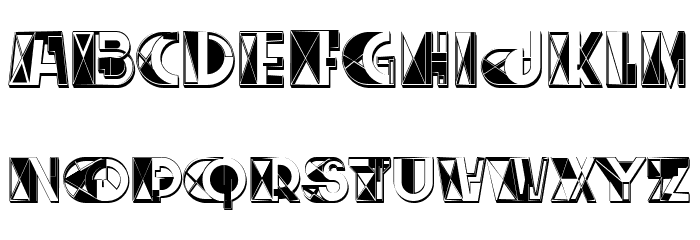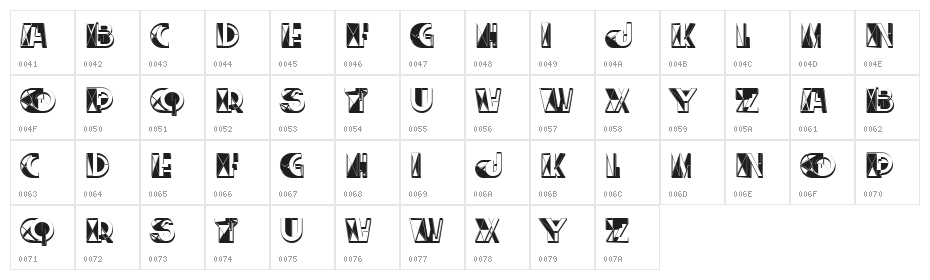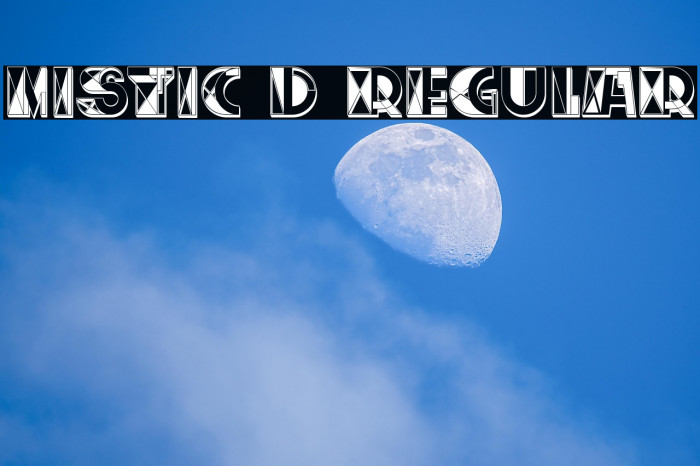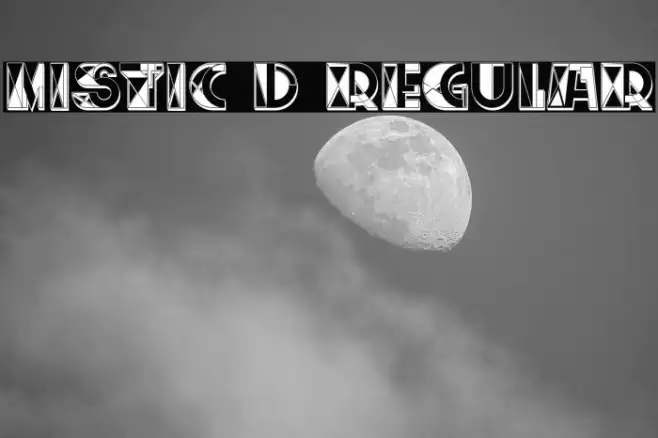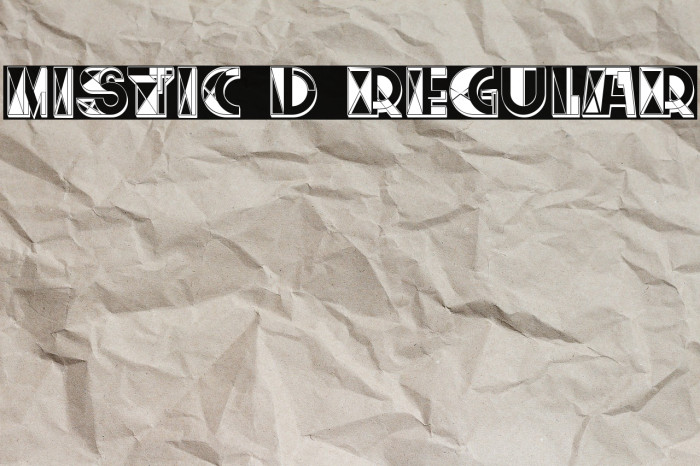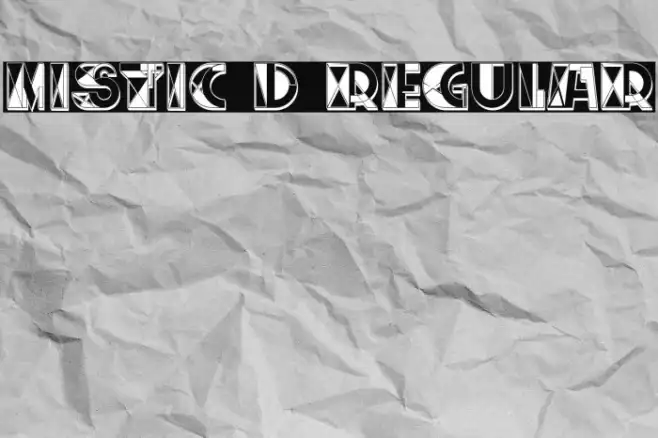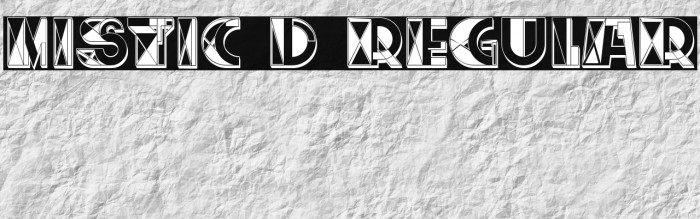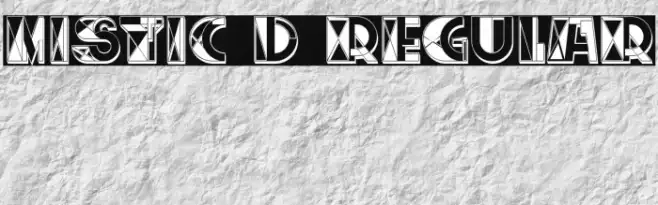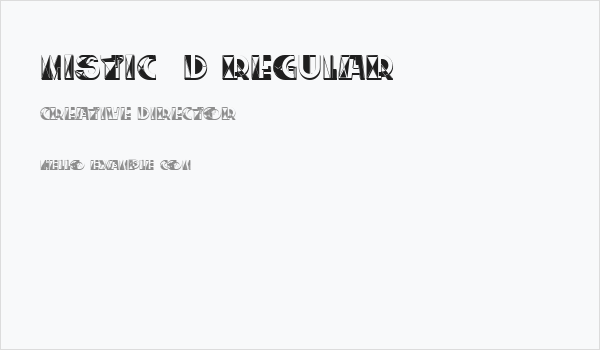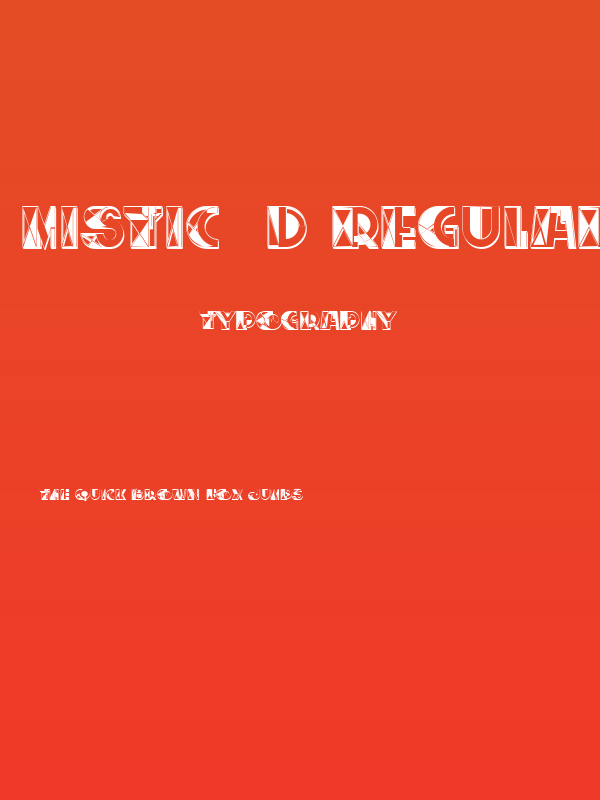
Mistic 3D Regular Font
Mistic 3D Regular Description
This font features a bold and geometric design with a three-dimensional effect. Each character is constructed with a combination of solid and outlined shapes, creating a striking visual impact. The use of angular lines and sharp edges gives it a futuristic and dynamic appearance. The letters are filled with contrasting black and white sections, enhancing the 3D illusion. This unique style makes it stand out, suitable for projects that require a modern and edgy look.
| Proposed Projects | Ideal for futuristic branding, video game titles, posters, and digital art projects. |